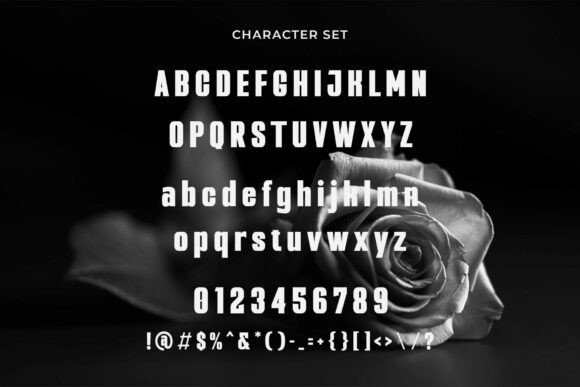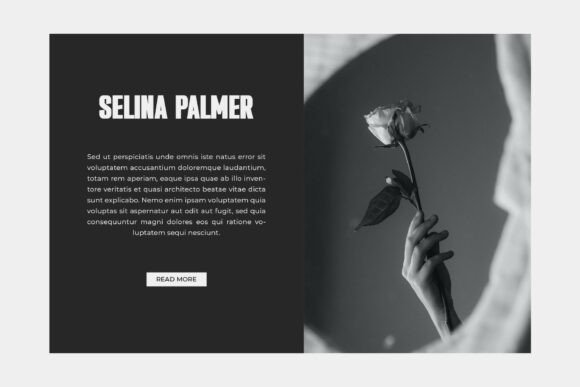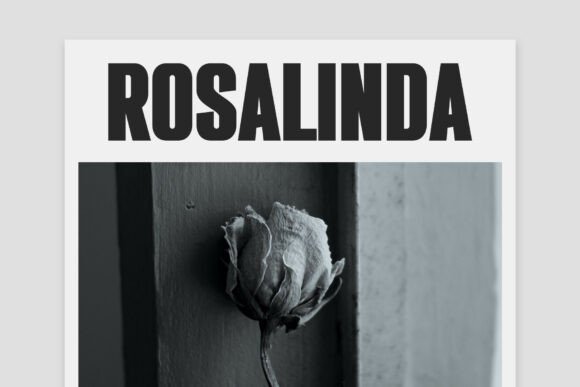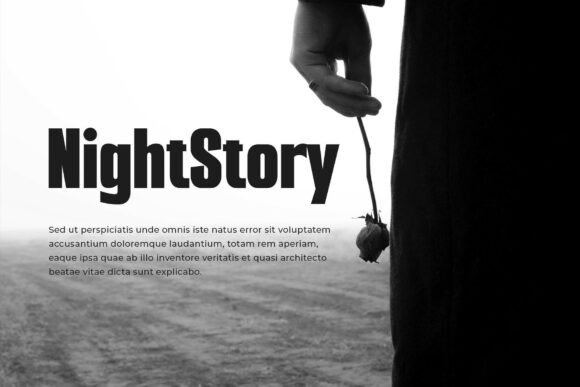
Unleash the Power of Blackrose Font: Elevate Your Designs with a Striking Condensed Sans Serif
In the world of typography, fonts play a crucial role in conveying the tone and personality of a brand, product, or creative project. For designers and crafters seeking to make a bold statement, the Blackrose Font is an exceptional choice. This striking condensed sans serif font boasts an intense and dramatic look, perfect for bold branding, editorial covers, and statement graphics.
The Blackrose Font: A Perfect Blend of Vintage and Modern
Blackrose is a thoughtfully designed font that seamlessly blends vintage influence with modern simplicity. The result is a unique and captivating typography that exudes sophistication and elegance. The condensed sans serif design ensures that the font remains versatile and highly legible, making it suitable for a wide range of applications.
One of the standout features of Blackrose is its ability to add a touch of glamour and luxury to any design. The font’s bold and dramatic appearance makes it an ideal choice for high-impact branding projects, fashion editorials, and film promotions. Whether you’re looking to create a striking logo, eye-catching poster, or captivating social media graphics, Blackrose is the perfect companion.
Key Features of Blackrose Font
- Condensed Sans Serif Design: Blackrose features a sleek and modern sans serif design, carefully condensed to create a bold and dramatic appearance.
- Vintage Influence: The font’s vintage undertones add a touch of sophistication and elegance, making it perfect for high-end branding and editorial projects.
- Highly Legible: Despite its condensed design, Blackrose remains highly legible, ensuring that your message is conveyed clearly and effectively.
- Versatile: The font’s versatility makes it suitable for a wide range of applications, from fashion and film to branding and editorial projects.
Perfect for Fashion, Film, and High-Impact Branding Projects
Blackrose Font is an exceptional choice for designers and crafters working on fashion, film, or high-impact branding projects. The font’s bold and dramatic appearance ensures that your designs stand out from the crowd, capturing the attention of your audience and leaving a lasting impression.
In the world of fashion, Blackrose can be used to create stunning editorial spreads, eye-catching advertising campaigns, and captivating social media graphics. For film promotions, the font can be used to create bold and attention-grabbing posters, trailers, and title sequences.
Tips for Using Blackrose Font Effectively
To get the most out of Blackrose Font, here are a few tips to keep in mind:
- Use it boldly: Blackrose is designed to make a statement, so don’t be afraid to use it boldly and prominently in your designs.
- Experiment with colors: The font’s sleek design makes it versatile, so experiment with different colors and textures to add depth and interest.
- Pair it wisely: Blackrose can be paired with a range of fonts, but it’s best to choose a font that complements its bold and dramatic appearance.
In conclusion, Blackrose Font is a striking condensed sans serif font that is sure to elevate your designs and make a lasting impression. With its perfect blend of vintage influence and modern simplicity, this font is ideal for bold branding, editorial covers, and statement graphics. Whether you’re a designer, crafter, or simply a typography enthusiast, Blackrose is an exceptional choice for anyone looking to add a touch of glamour and sophistication to their creative projects.